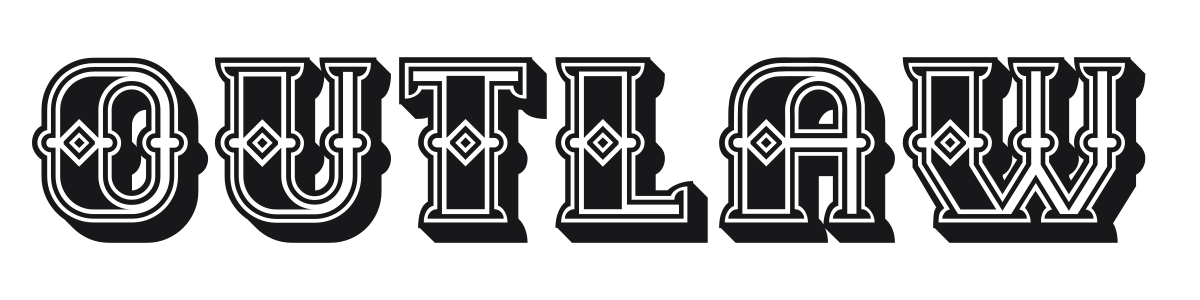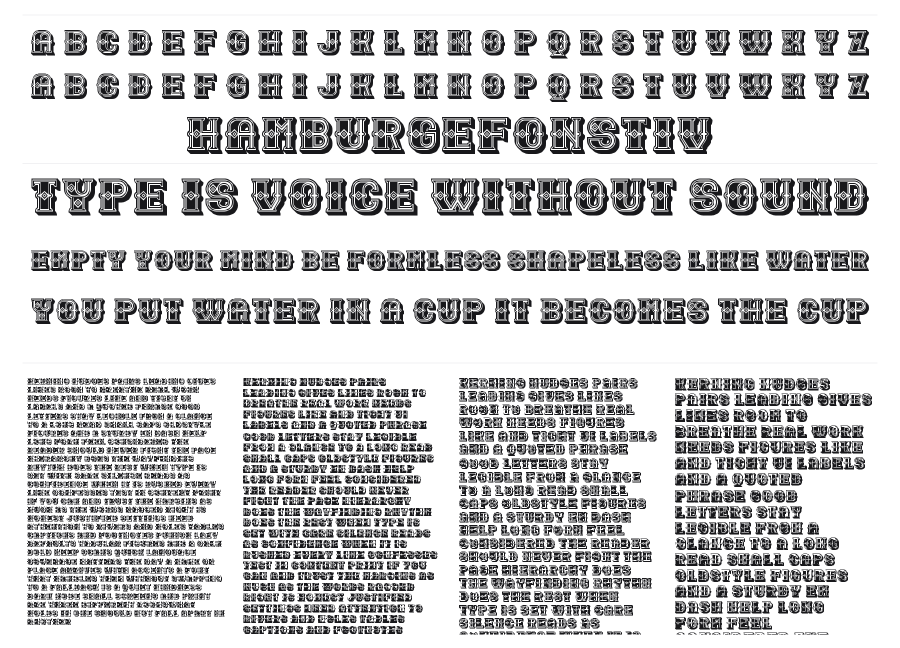
Outlaw
Outlaw is a heavy ornamental Western display font packed with 19th-century poster DNA. Each character features intricate inline detailing, diamond ornaments inside the strokes, and a bold drop shadow that gives the design real dimensional presence. It channels the typography of frontier saloons and wanted posters with enough polish to work in modern branding.